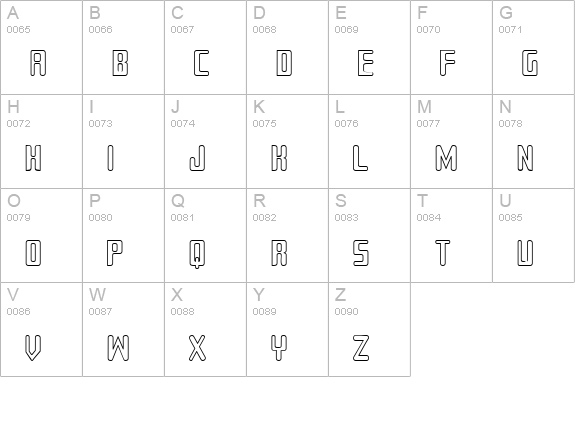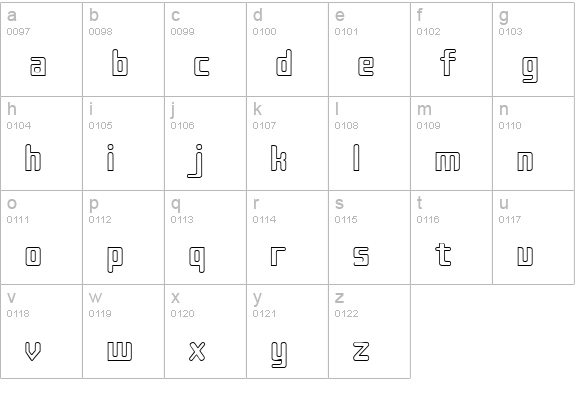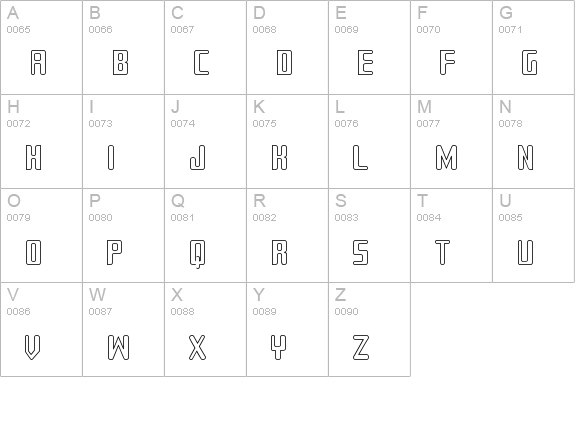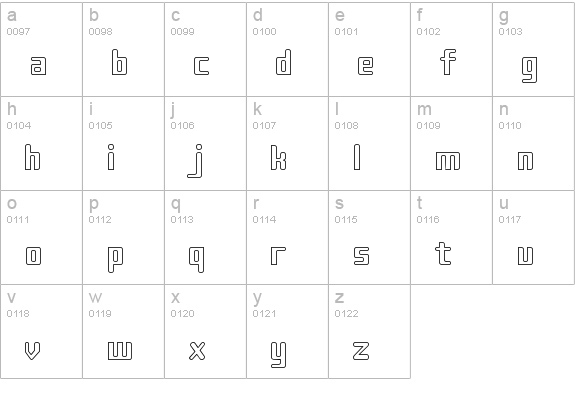
Sujeta Outline Font Details
Sujeta Outline font is a modern and stylish typeface that exudes sophistication and elegance. Its sleek and clean lines make it perfect for a wide range of design projects, from branding to editorial design. The outline version of Sujeta adds a unique touch to any text, giving it a contemporary and eye-catching look. What's even better is that Sujeta Outline font is available for free download at FontsMarket.com. This means that you can easily access this beautiful typeface and use it in your projects without any cost. Don't miss out on this amazing opportunity to enhance your designs with Sujeta Outline font today!